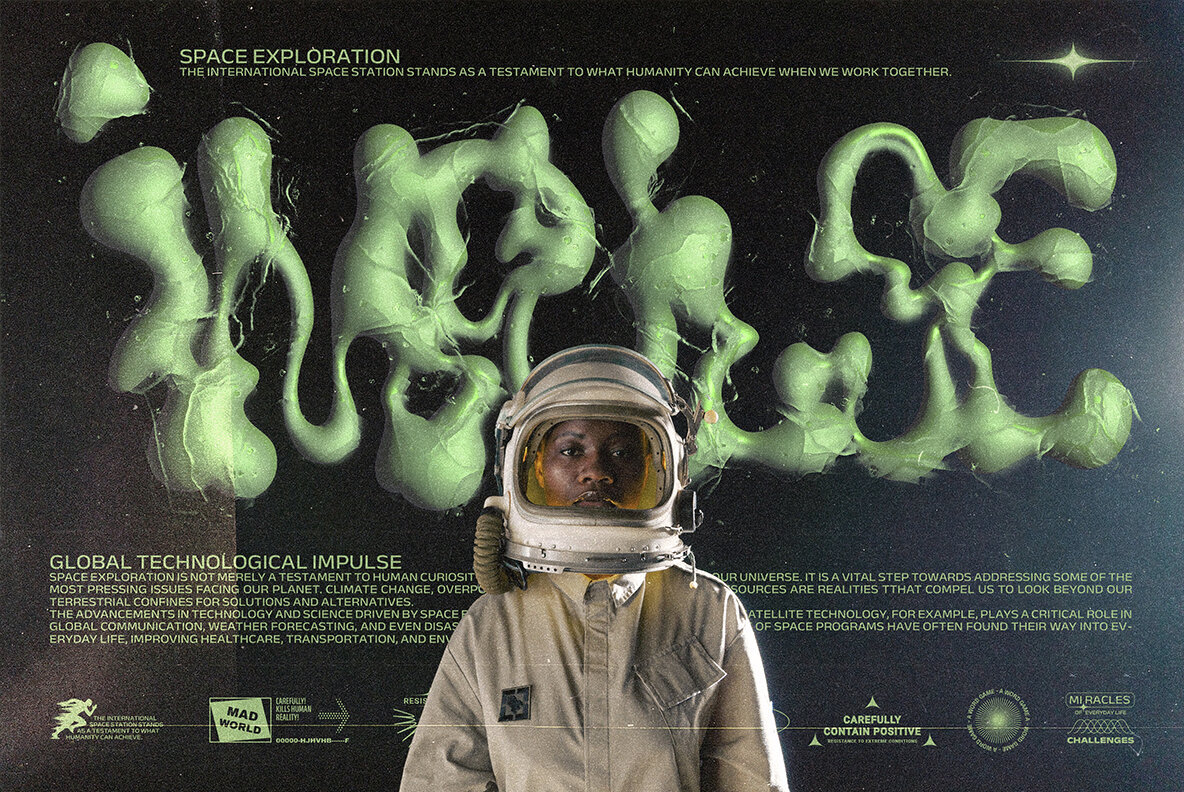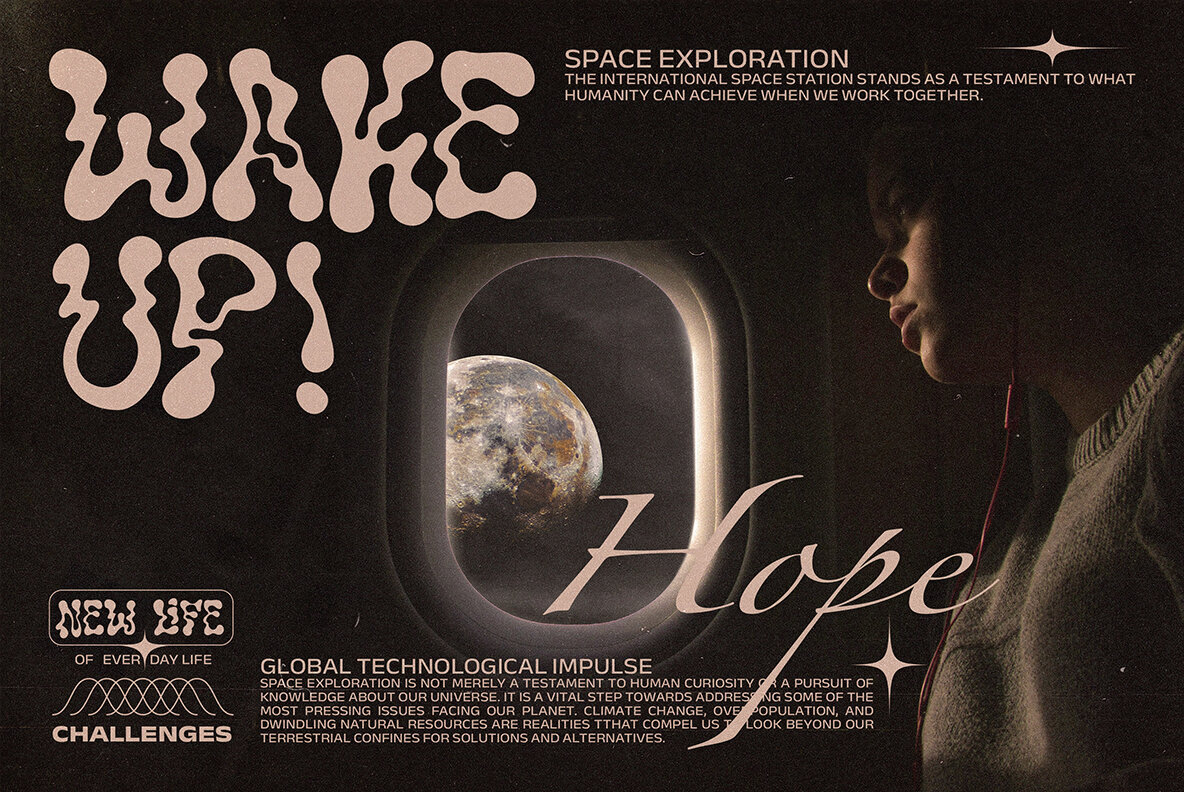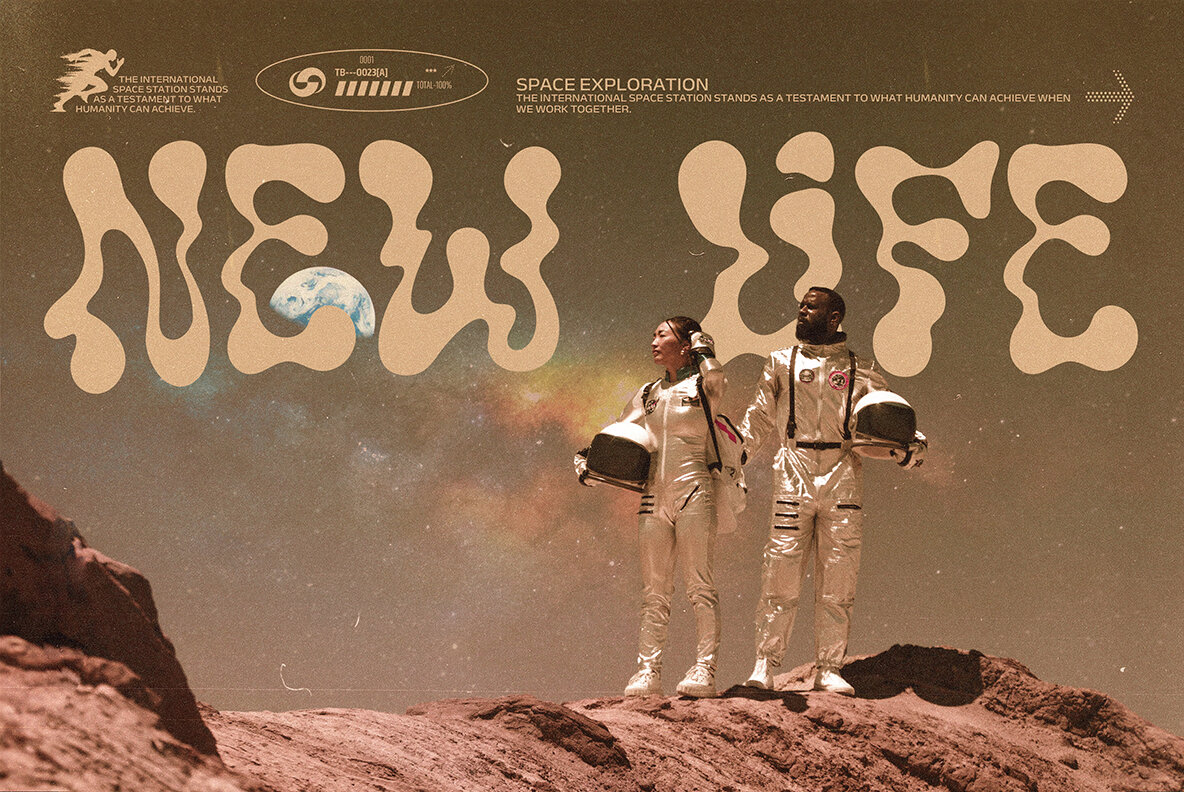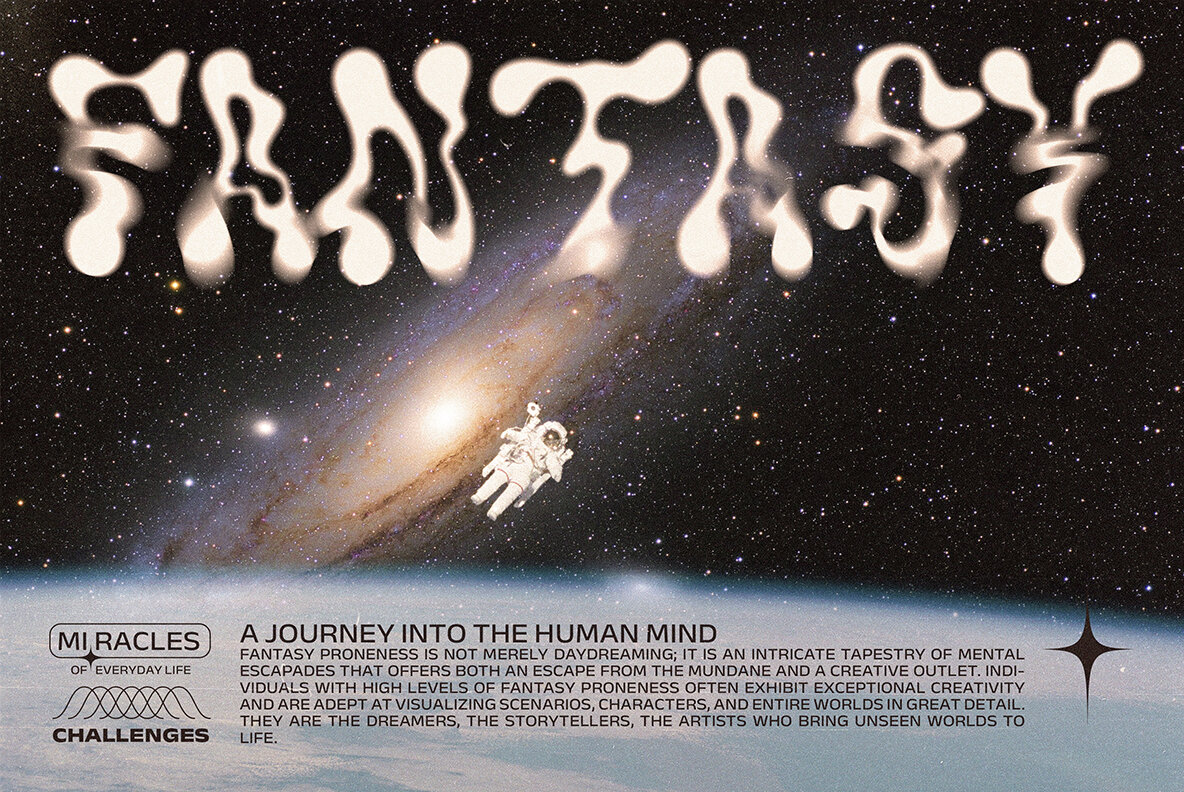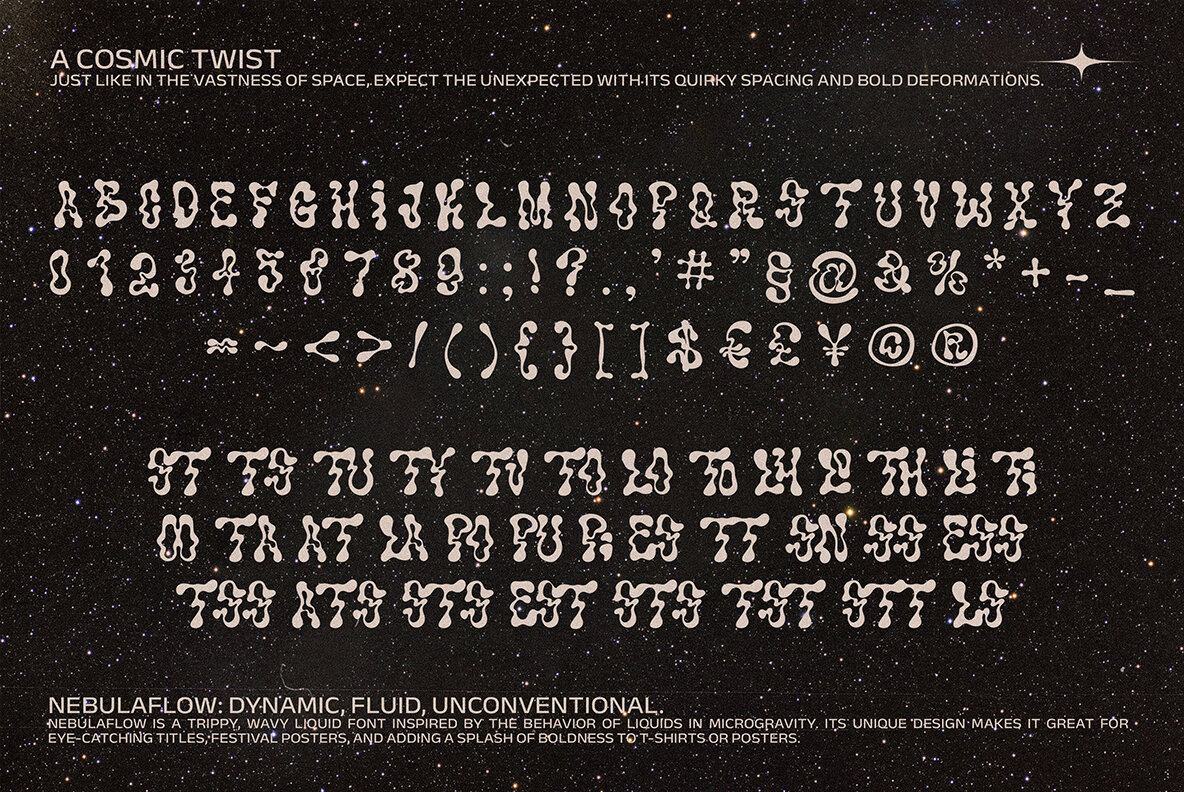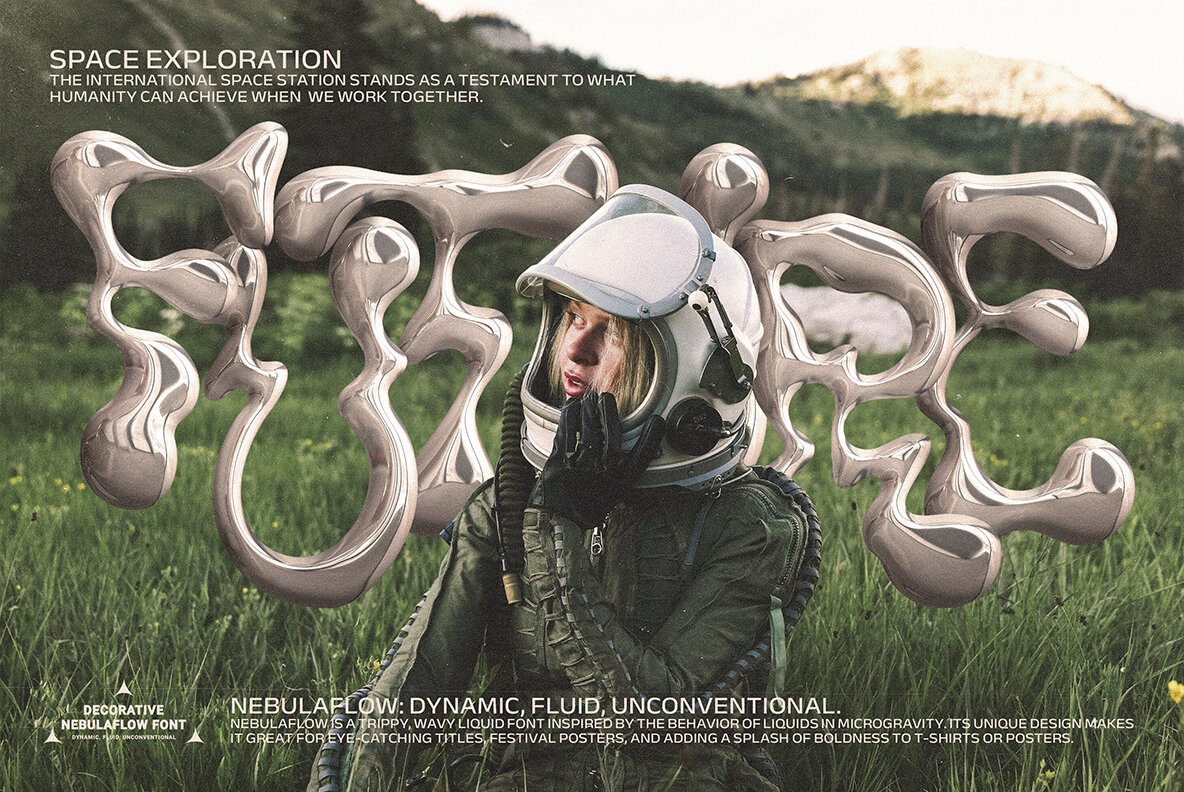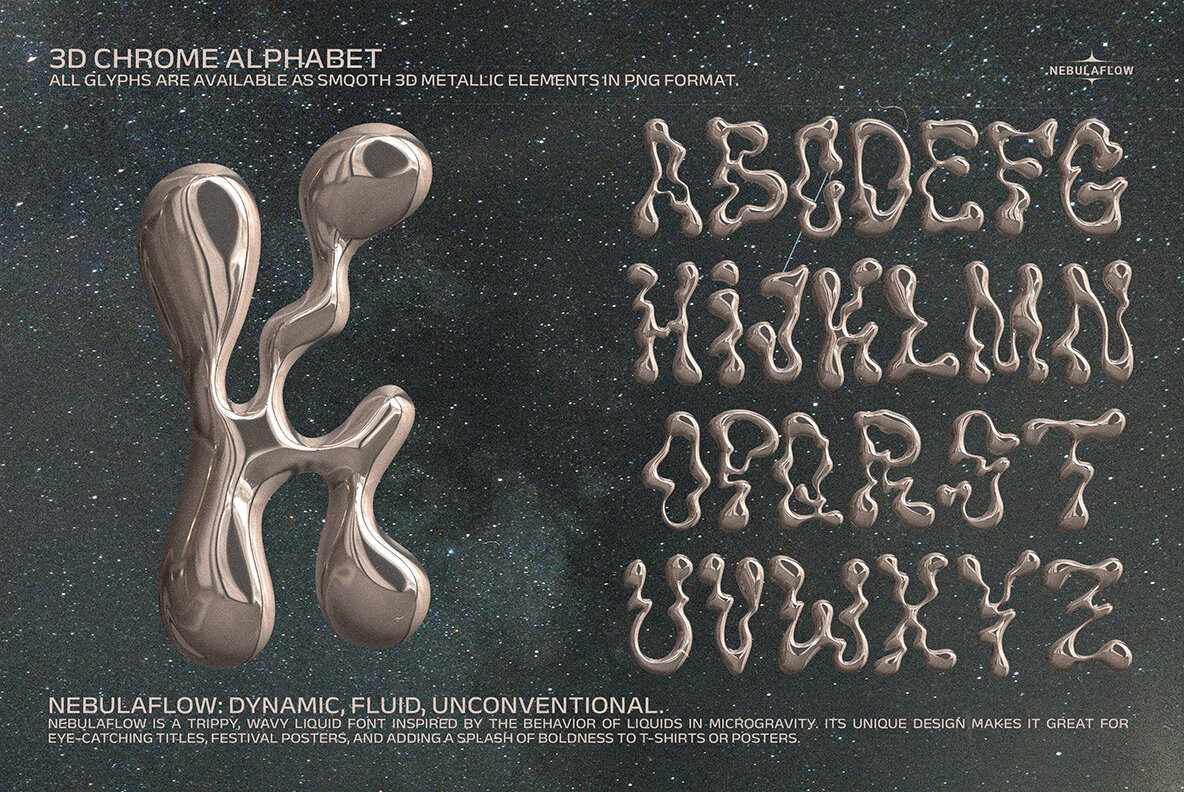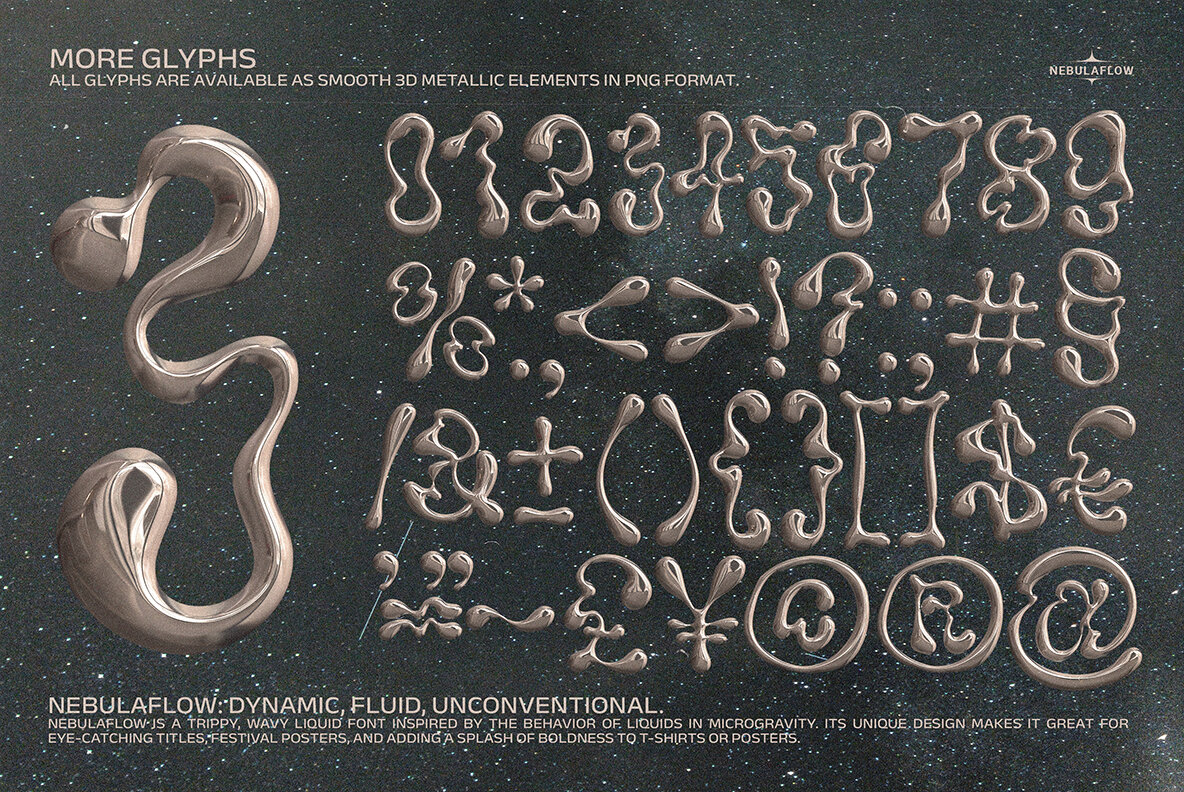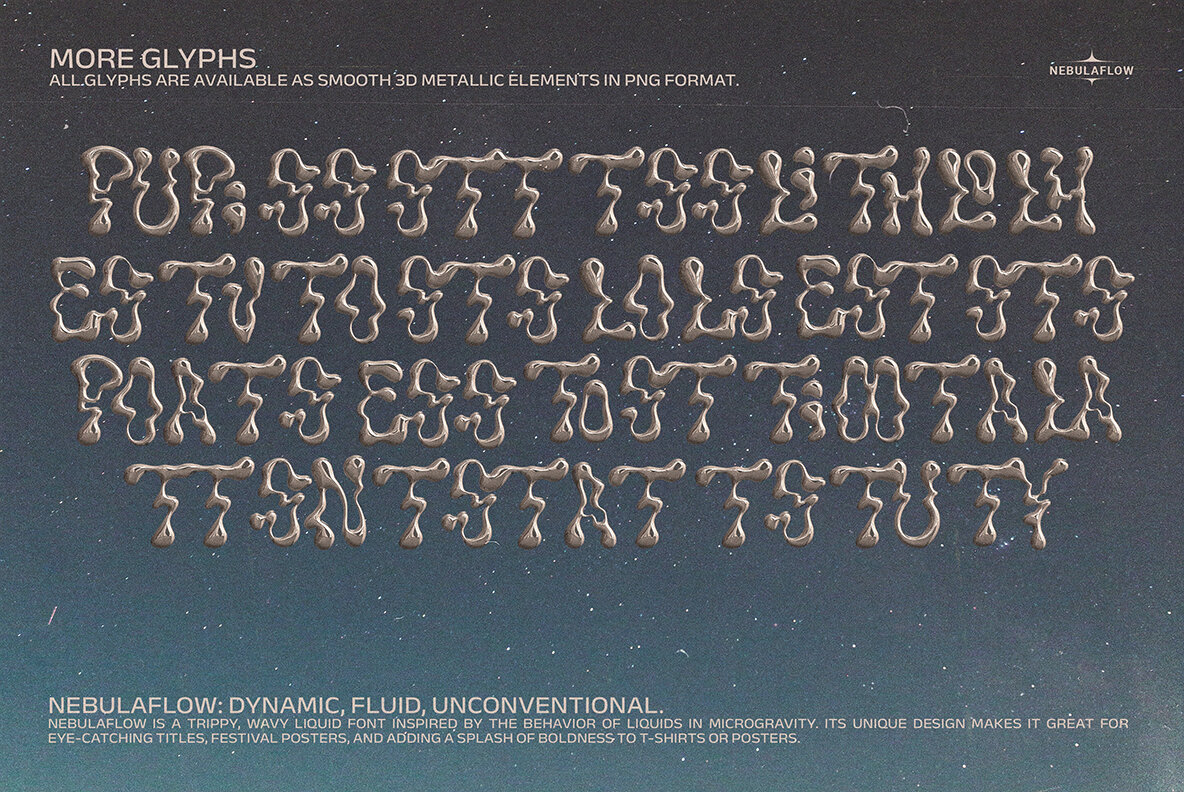
The Nebula Flow Font
NebulaFlow is a trippy, wavy liquid font inspired by the behavior of liquids in microgravity. Its unique design makes it great for eye-catching titles, festival posters, and adding a splash of boldness to T-shirts or hoodies. With its playful take on spacing and form, NebulaFlow is all about bringing a fresh, experimental vibe to any project. It's the go-to font for creating something a bit different, a bit more dynamic. You will receive: